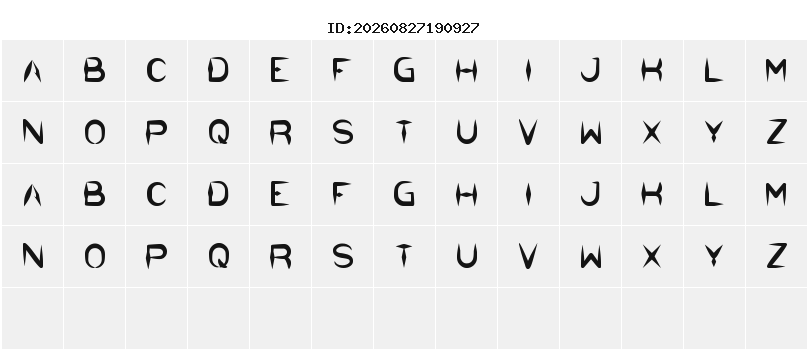
the dark knight Preview
• Font Name: the dark knight
About the dark knight.ttf
the dark knight.ttf is a modern, elegant sans-serif font designed for ultimate readability and visual harmony. Perfect for branding, headlines, web design, and print materials.